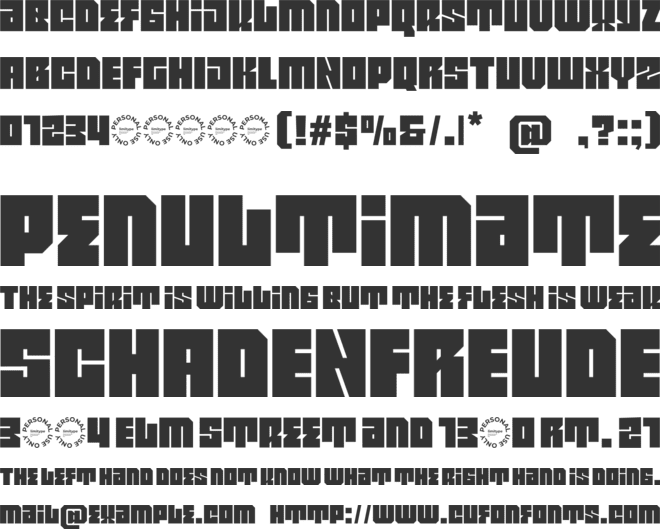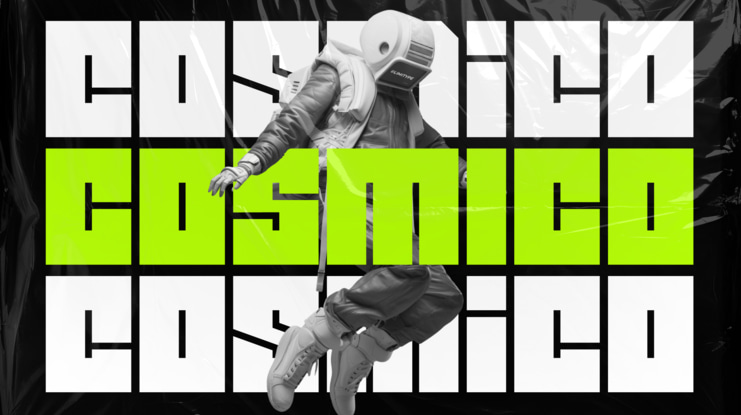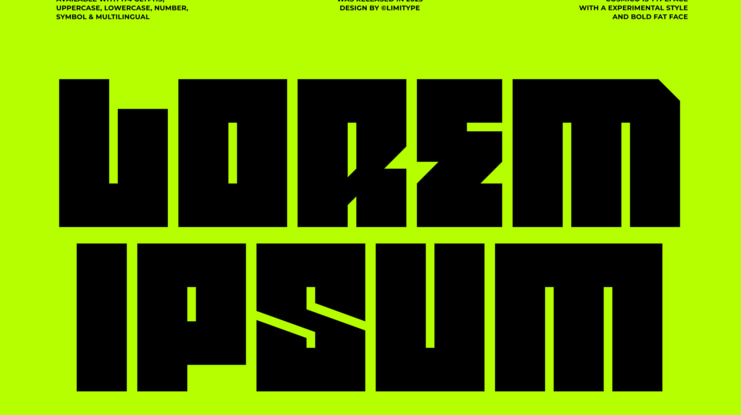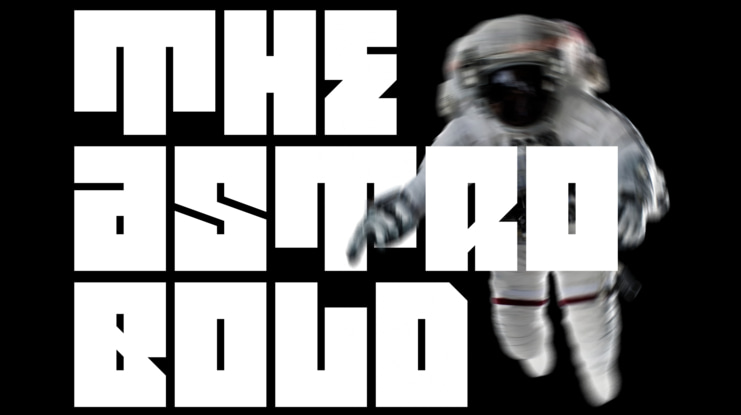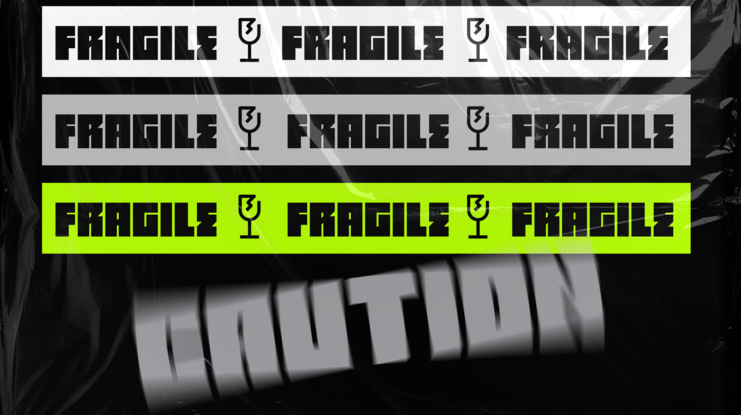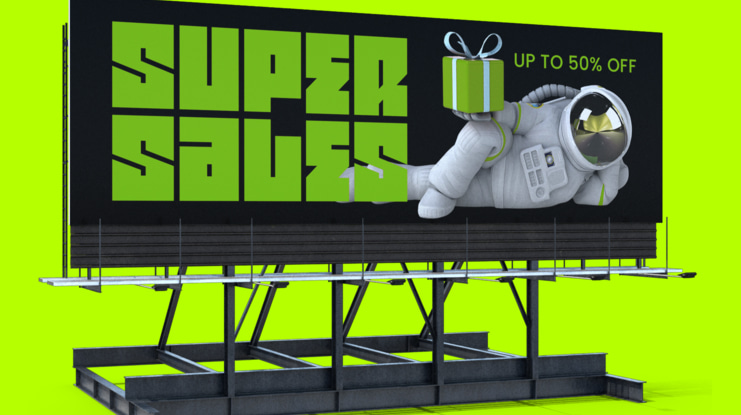
Cosmico Bold Font
Cosmico is a bold modern font with a sharp and strong character. Designed to stand out and look professional, it’s suitable for branding, headlines, posters, and digital designs that need a strong, modern, and futuristic feel.
Cosmico Demo font
Cosmico is a bold modern font with a sharp and strong character. Designed to stand out and look professional, it’s suitable for branding, headlines, posters, and digital designs that need a strong, modern, and futuristic feel.